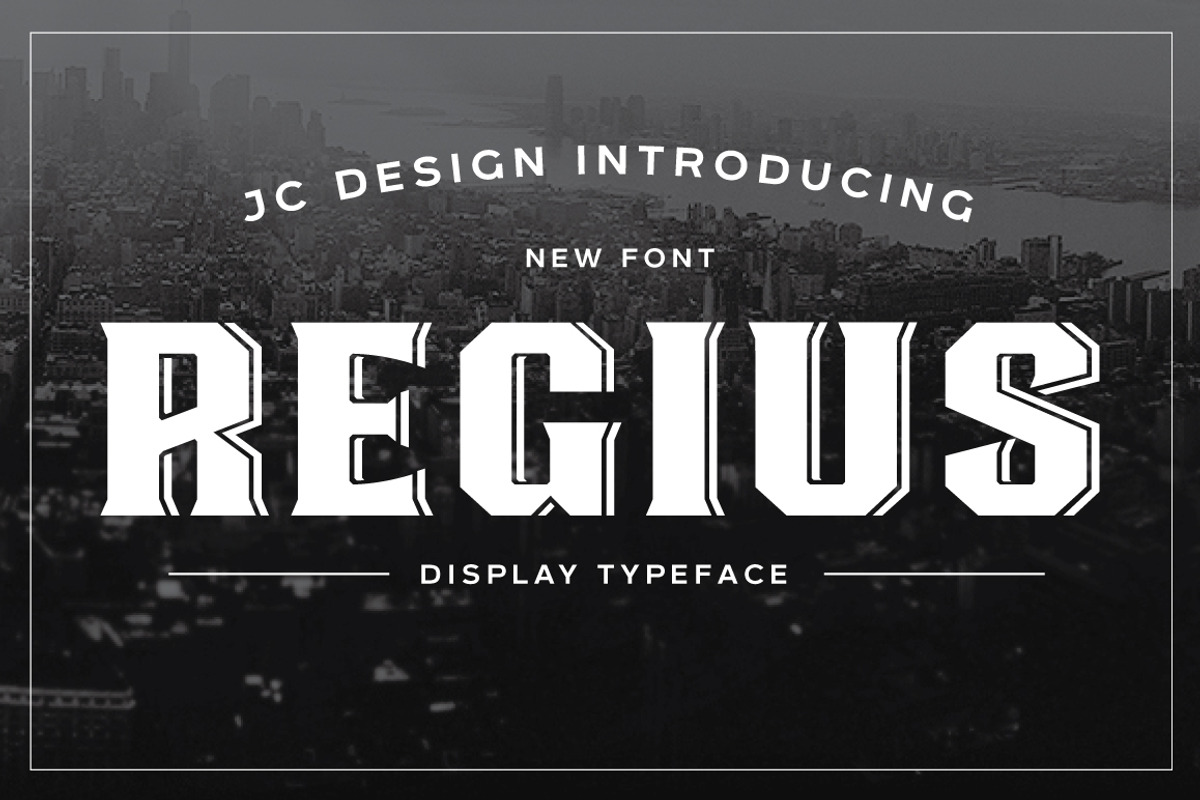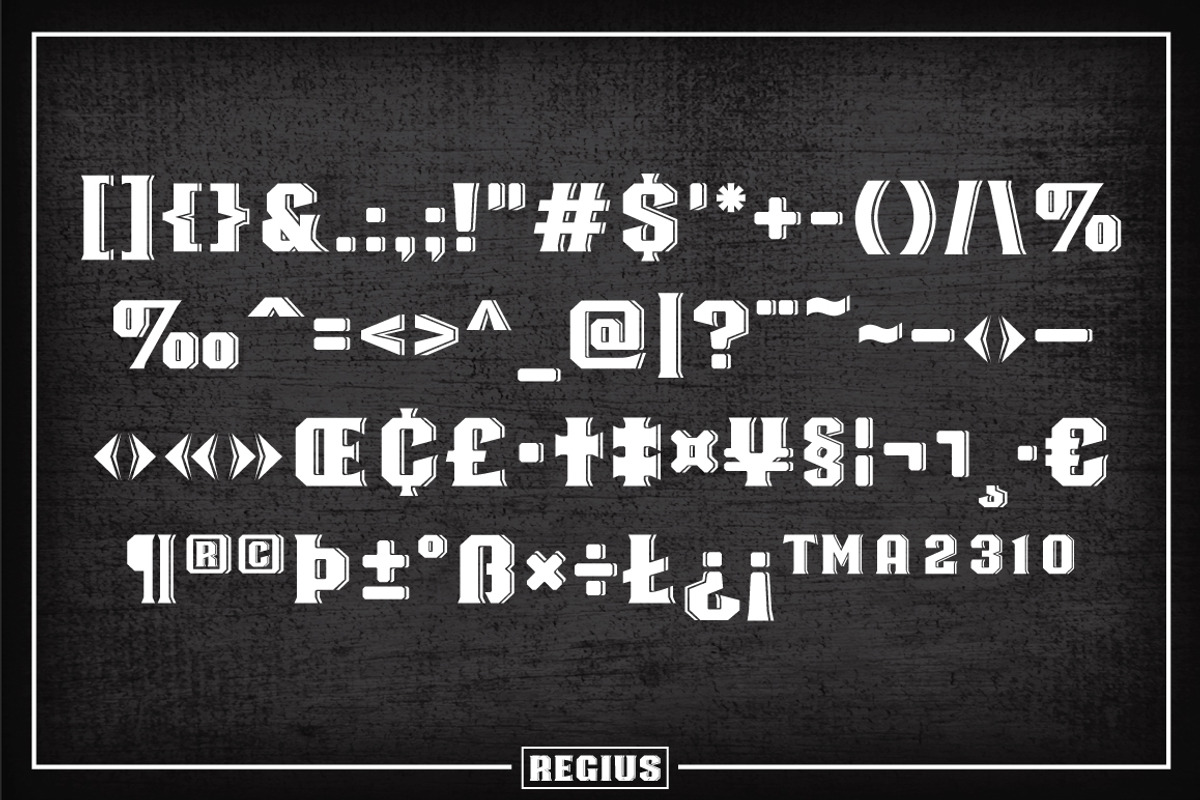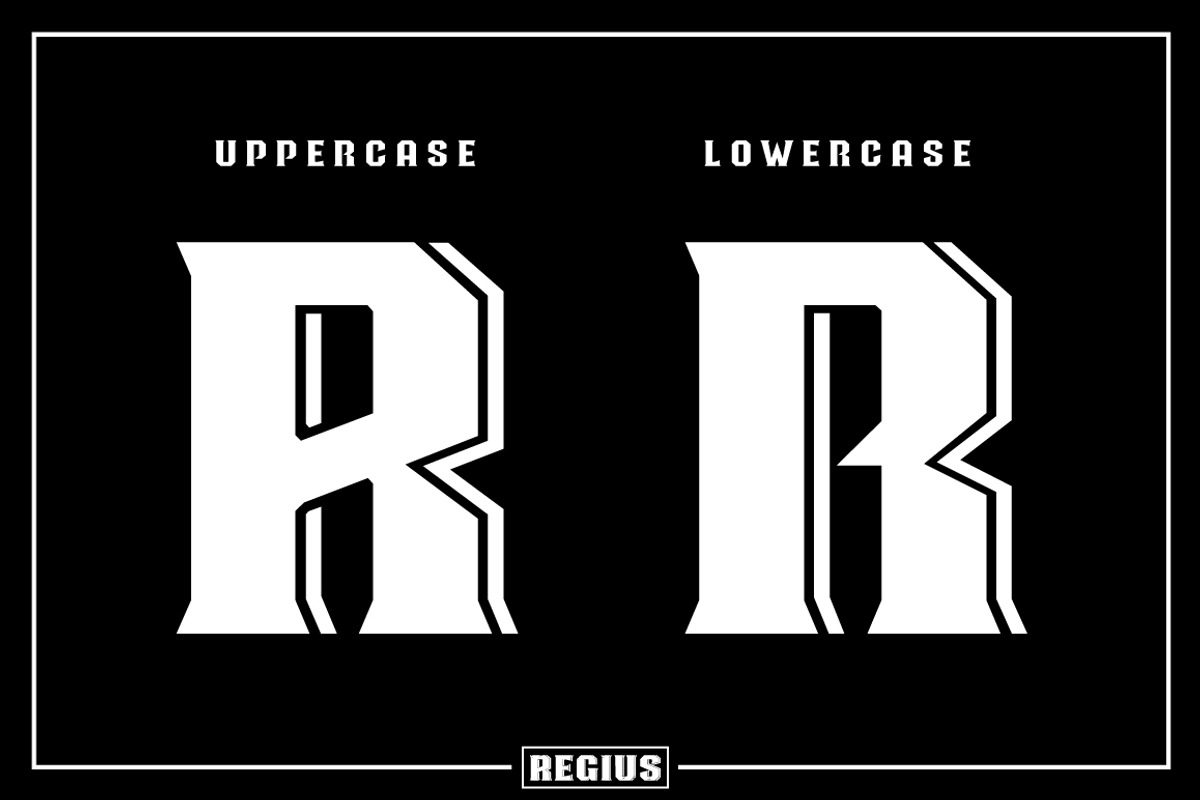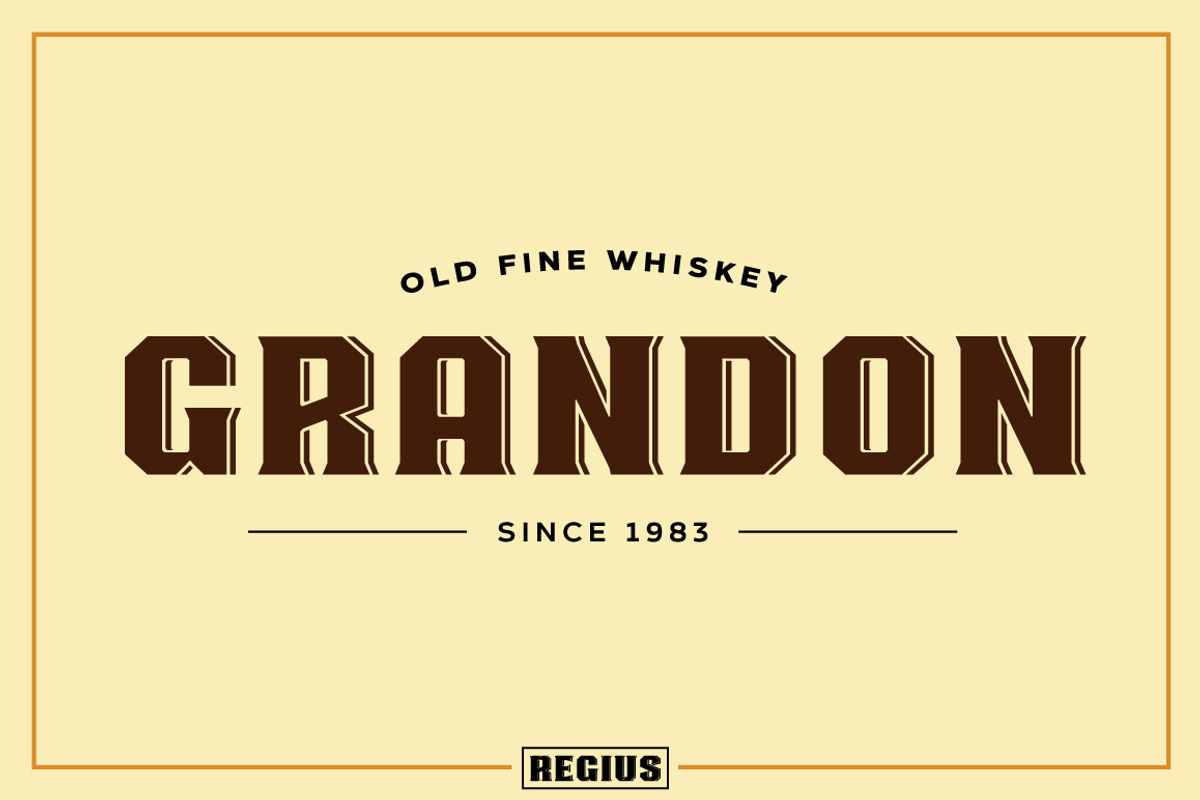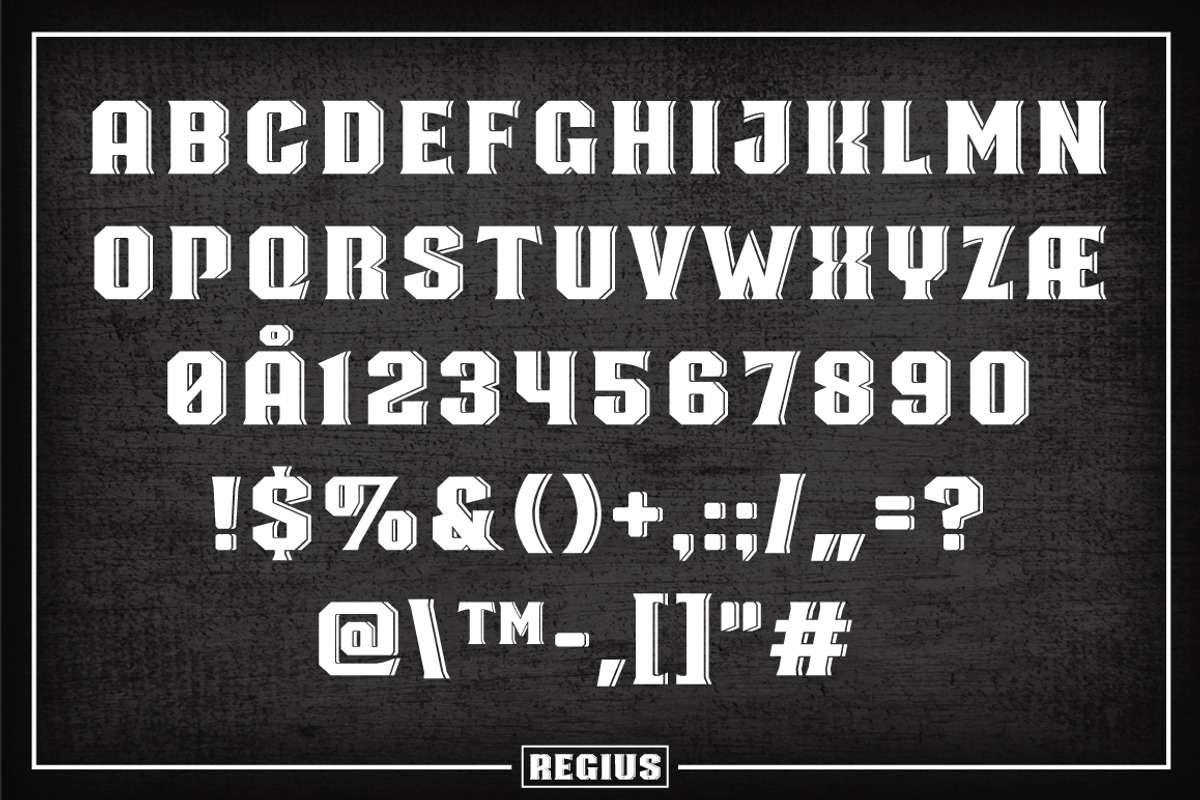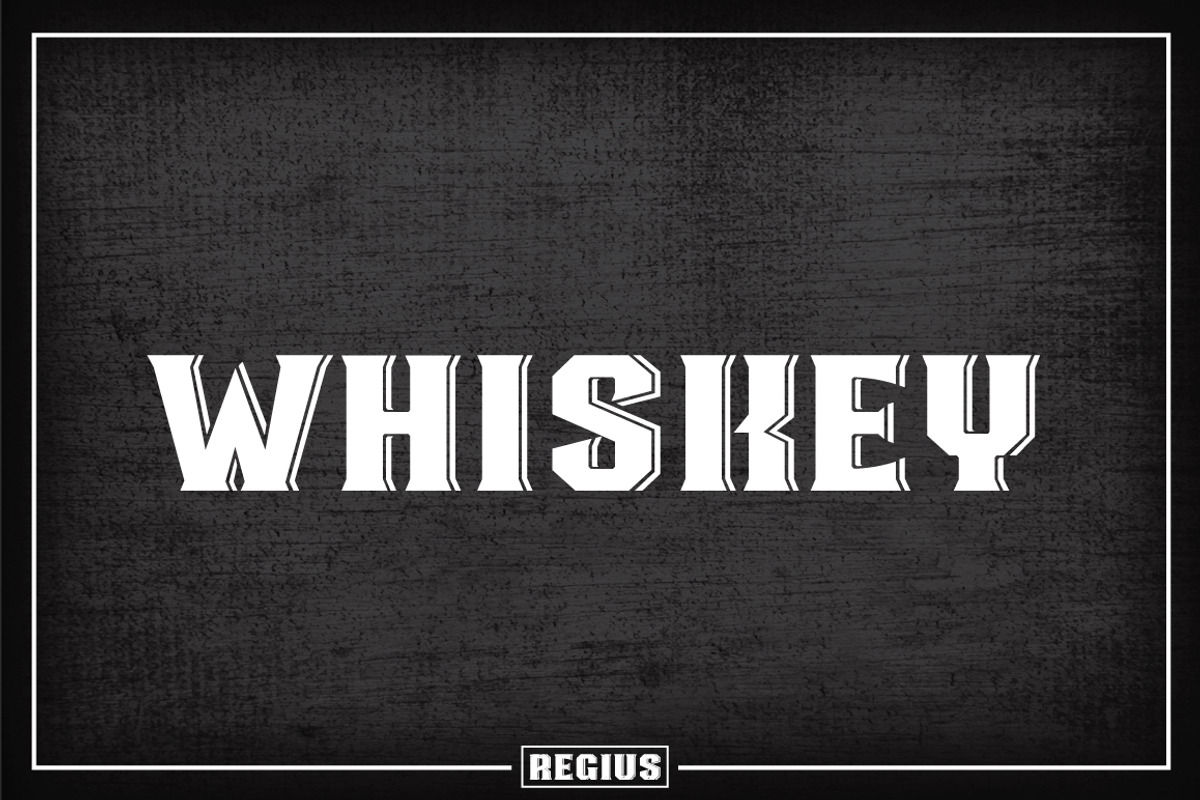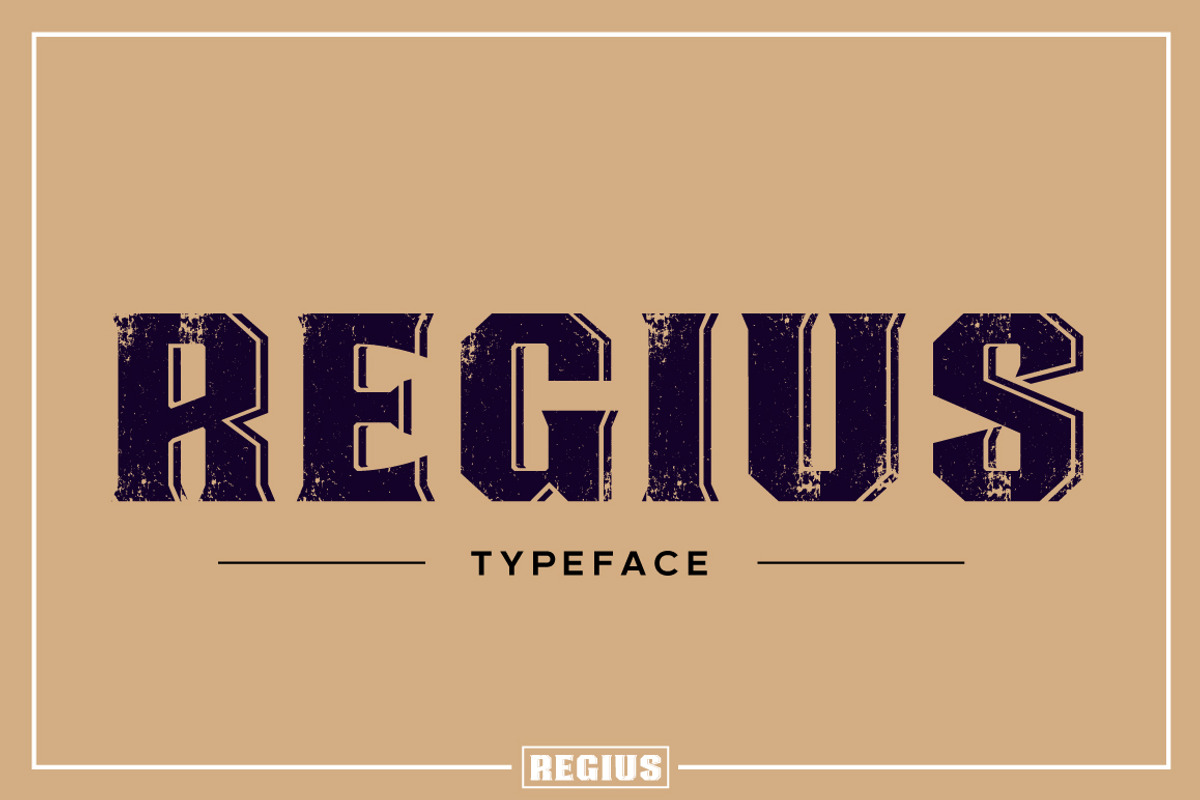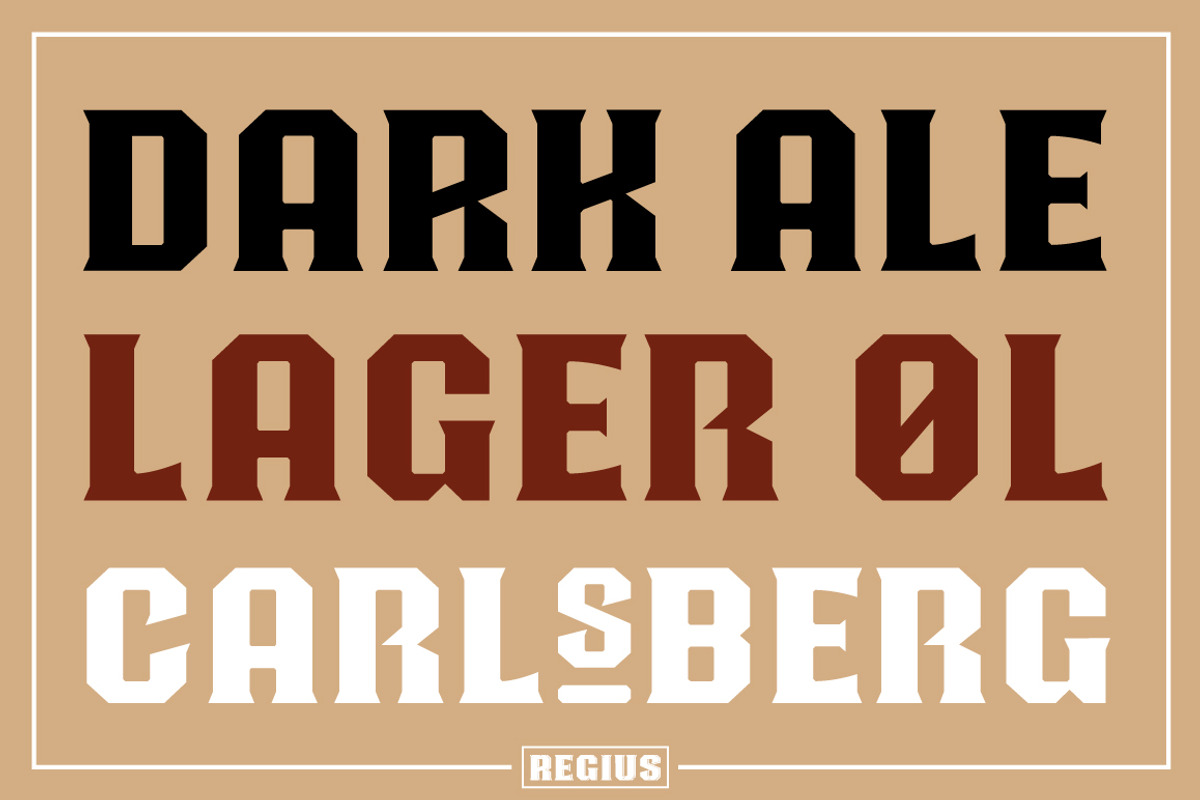
Regius Typeface
Regius Typeface by Jan-Christian Bruun is a font selected for branding, posters, packaging, typography.
Why Regius Typeface is worth a look
Regius Typeface by Jan-Christian Bruun fits naturally into Branding, posters, packaging, typography.